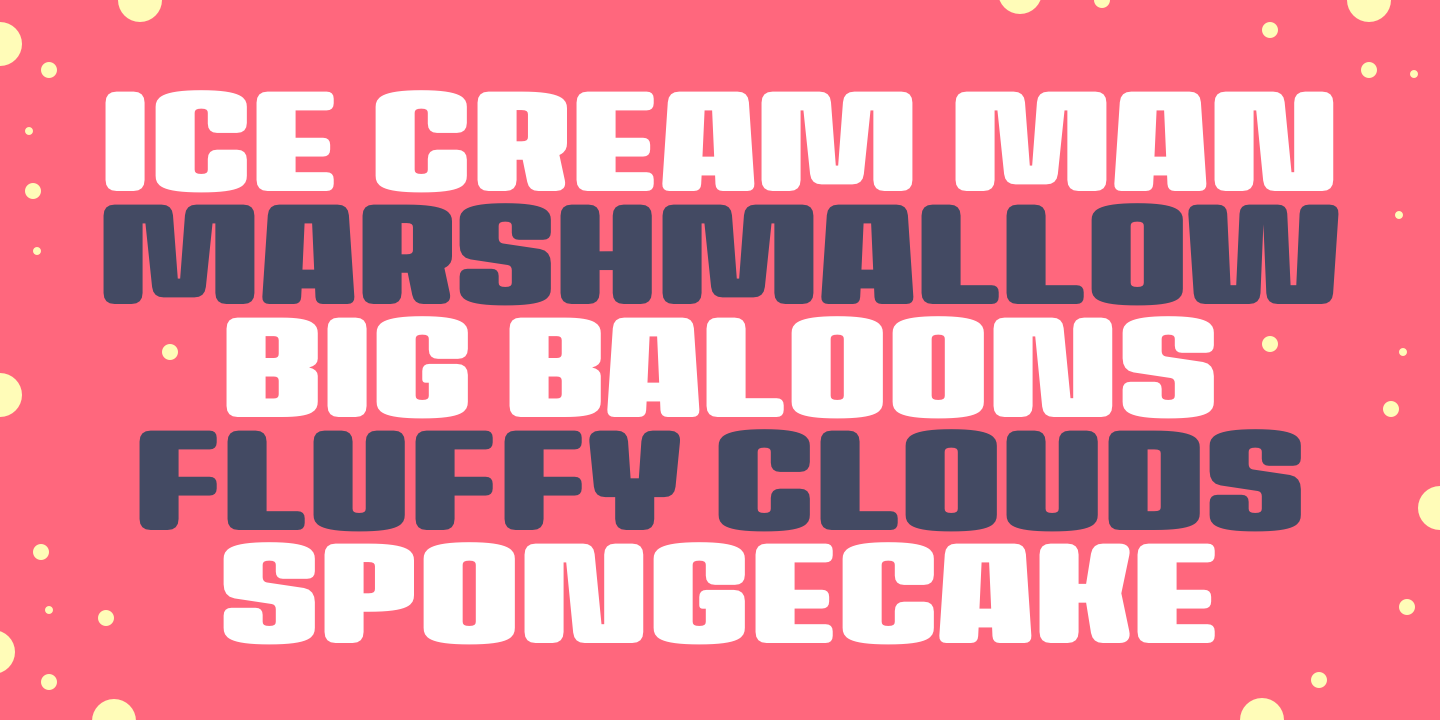
The House Soft Font Free Download is an incredibly warm and inviting typeface, making it an excellent choice for designs that aim to convey comfort, friendliness, and a welcoming, approachable aesthetic. This charming font is perfectly suited for home decor branding, children's product packaging, cozy cafe menus, boutique invitations, lifestyle blogs, and social media graphics for family-oriented content. Imagine it adding a gentle touch to a handmade craft label, providing a comforting feel for a bakery's signage, or giving a unique, wholesome vibe to a sustainable living website. Its rounded edges and soft forms ensure your message is delivered with warmth and an undeniable sense of genuine appeal.
What makes House Soft Font truly exciting is its ability to instantly infuse designs with a feeling of gentle comfort and heartfelt sincerity. It's not just a basic sans-serif; it embodies an organic softness and a friendly character that makes it incredibly appealing. The slightly playful forms and smooth curves give it an authentic, handcrafted feel, as if lovingly drawn. Designers will appreciate how easily it brings an unpretentious, comforting touch to any project, making it ideal for designs that need to feel approachable, original, and visually inspiring with a touch of domestic bliss.
The House Soft Font family typically offers a range of weights and styles to provide maximum flexibility for designers, allowing for various applications from headlines to body text. You can often find variations such as Light, Regular, Medium, and Bold, each providing a different level of visual impact for creating strong typographical hierarchies. Some versions might also include Italic styles, further enhancing its utility for emphasis and stylistic variation. These comprehensive options ensure that the House Soft Font Free Download empowers designers to create truly charming, comfortable, and visually captivating designs that resonate with warmth and a sense of belonging.